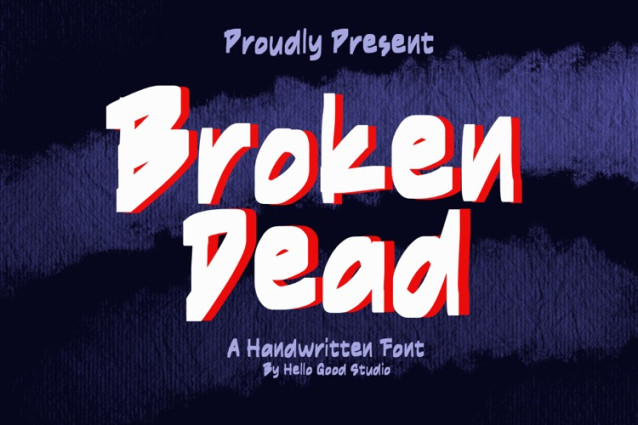
Broken Dead Font
Broken Dead Font a vibrant and energetic typographic style, perfect for making a bold statement. Featuring thick, hand-drawn strokes with a bright yellow fill, the design is elevated by a crisp white drop shadow that creates a striking 3D pop effect against the dark, textured background. Its playful yet edgy aesthetic draws inspiration from urban graffiti and modern brush script, making it an ideal choice for streetwear branding, eye-catching posters, or social media graphics that need an extra punch of personality.